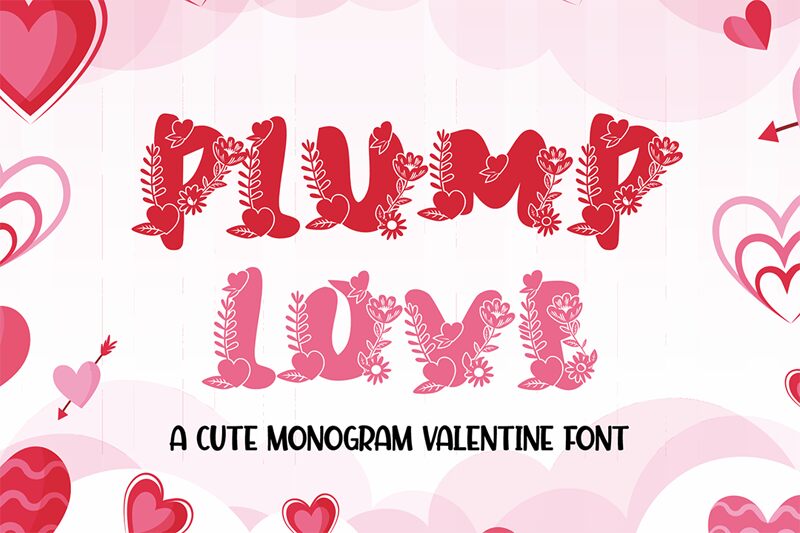
Plump Love Monogram, crafted by Cikareotype Studio, exudes charm with its bold and decorative style, perfectly embodying the spirit of romance. Each letter in this font blooms with a cheerful vivacity that echoes the joy of Valentine's Day. The font's stout characters present a friendly and inviting presence that captures attention and warms the heart.
Ideal for personalizing gifts, creating endearing invitations, or adding a touch of whimsy to branding projects, Plump Love Monogram translates beautifully across various design applications where affection and playfulness are desired. This font's robust curves and ornamental flair invite designers to express love through typography that is as full-bodied as it is delightful.
Plump Love Monogram